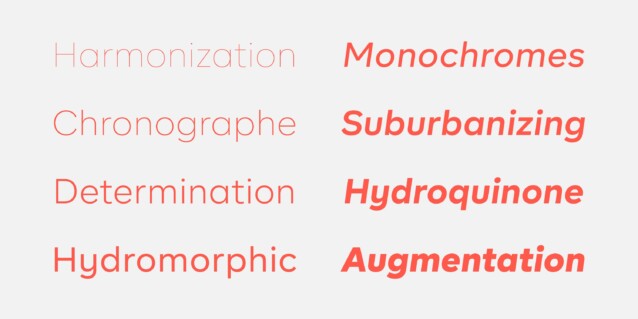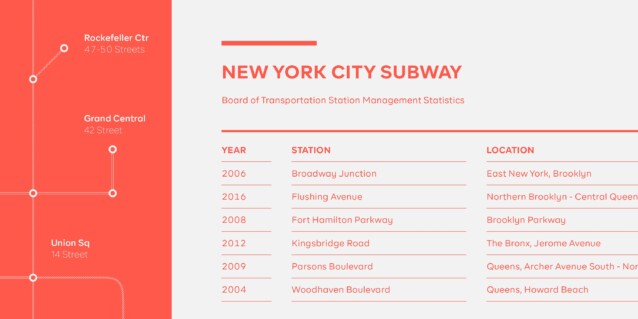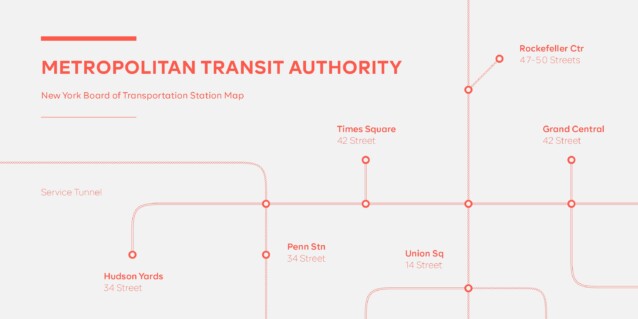
BR Firma Font Family
BR Firma Font is a contemporary geometric sans full of opentype features in Regular, Bold and Italic. It supports an ‘Extended Latin’ character set that covers over 200 latin based languages. BR Firma provides advanced typographic support with features such as case sensitive forms, fractions and slashed zeros. It comes with multiple figure sets and is ideal for print, advertising, publishing, branding, software and gaming as well as being optimised for web and screen design.